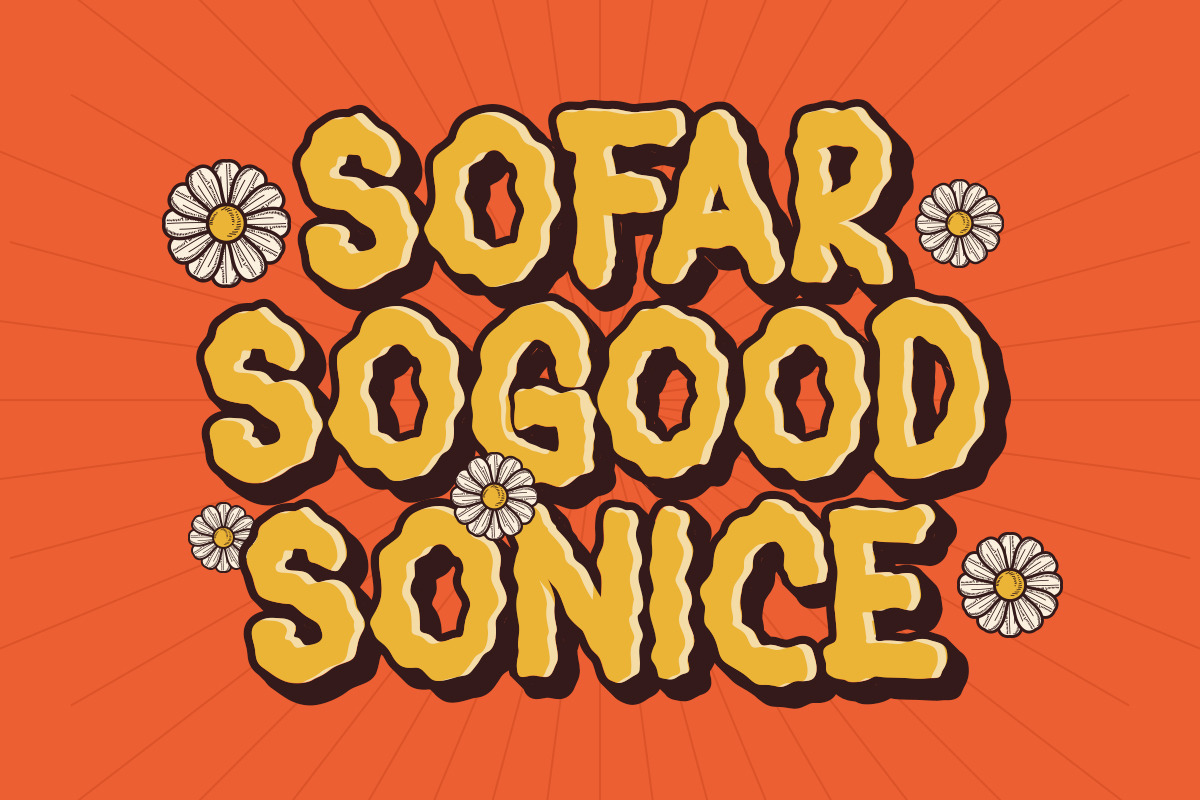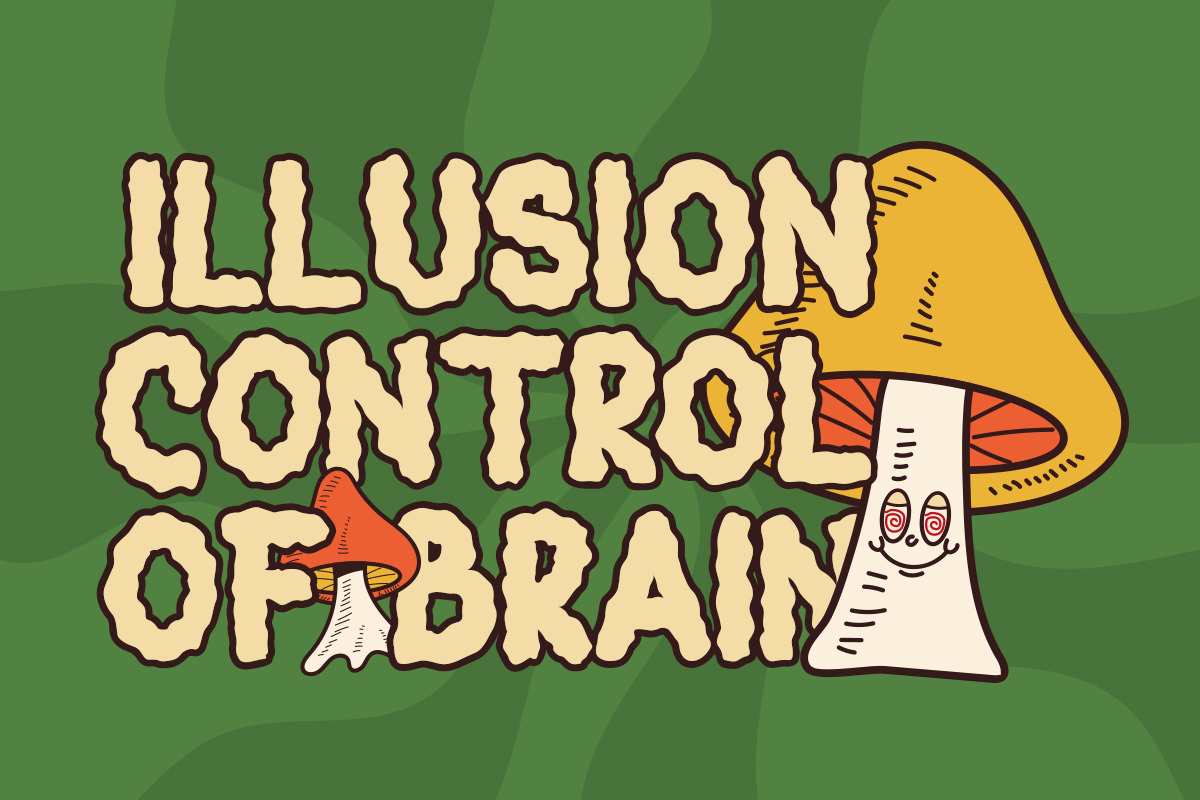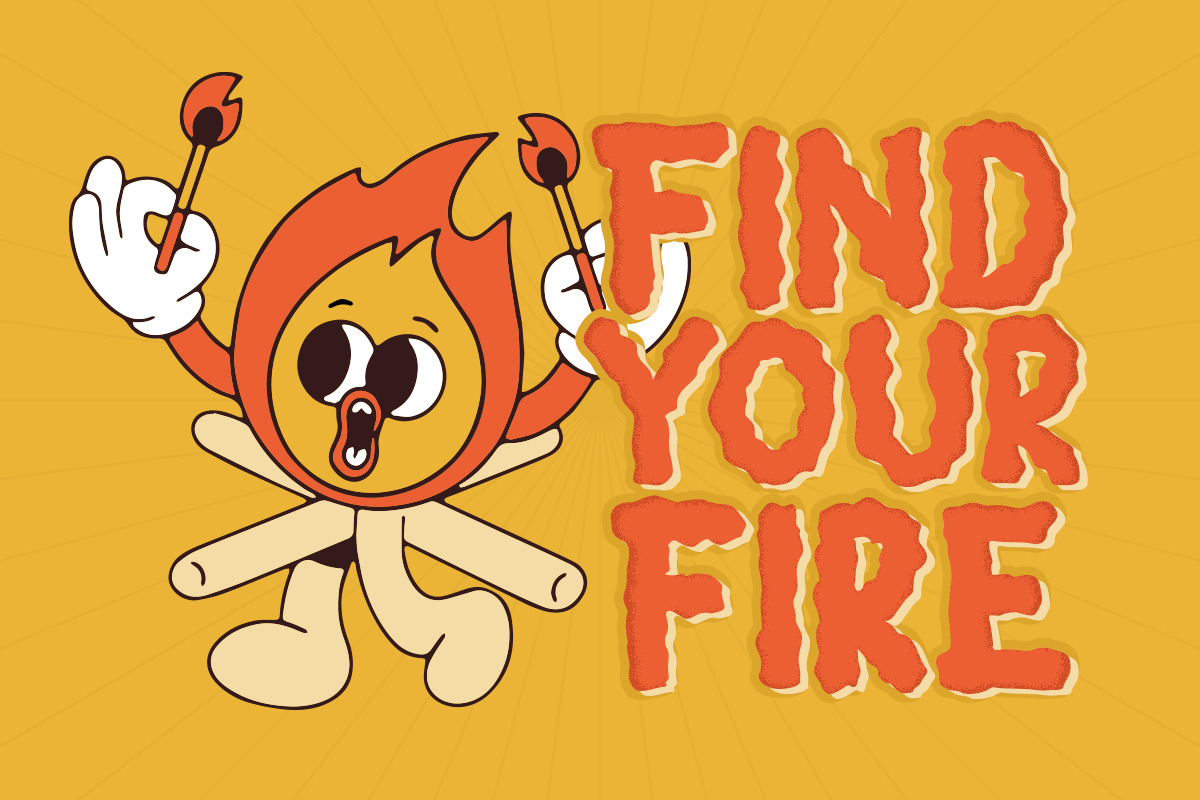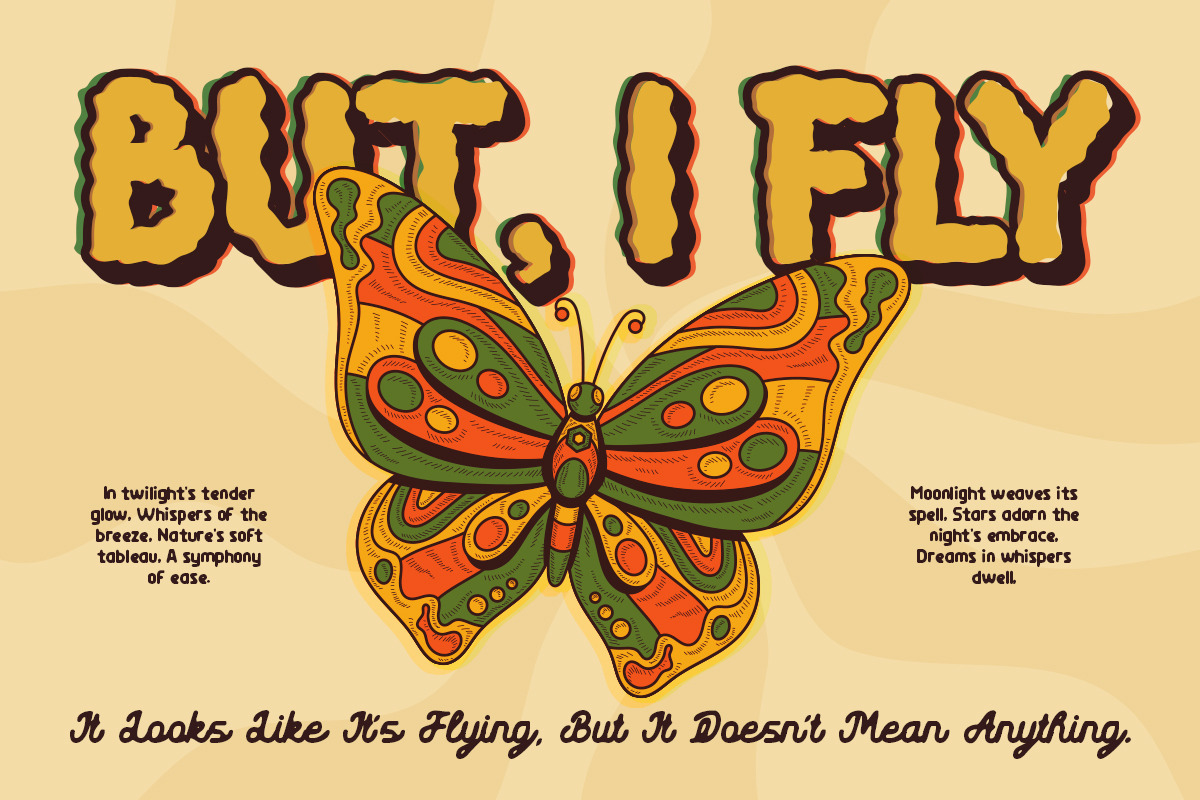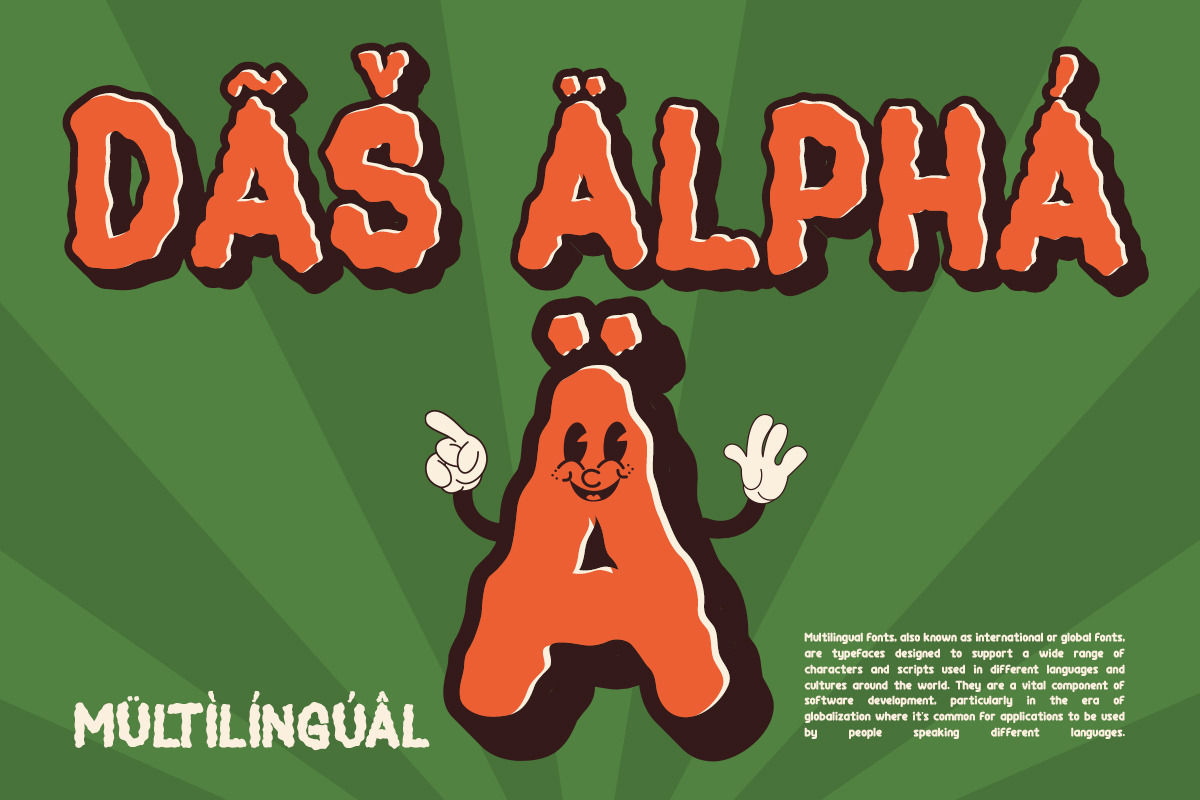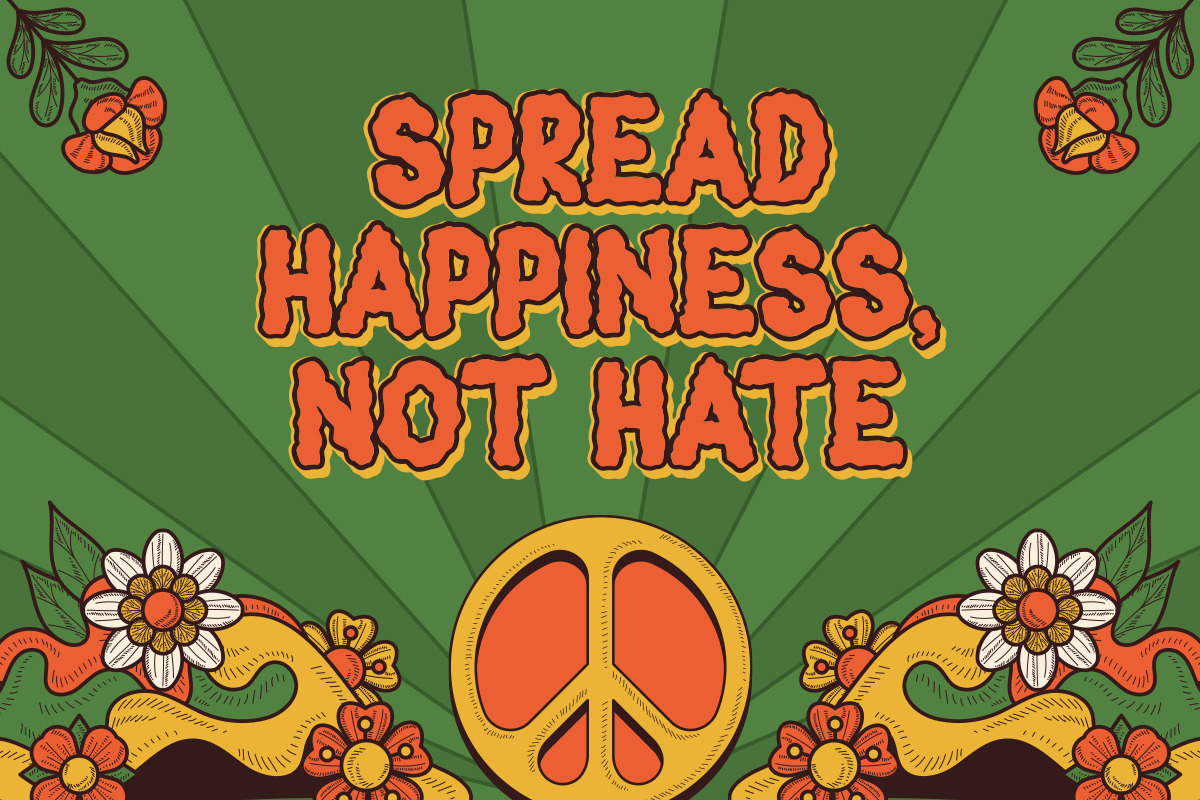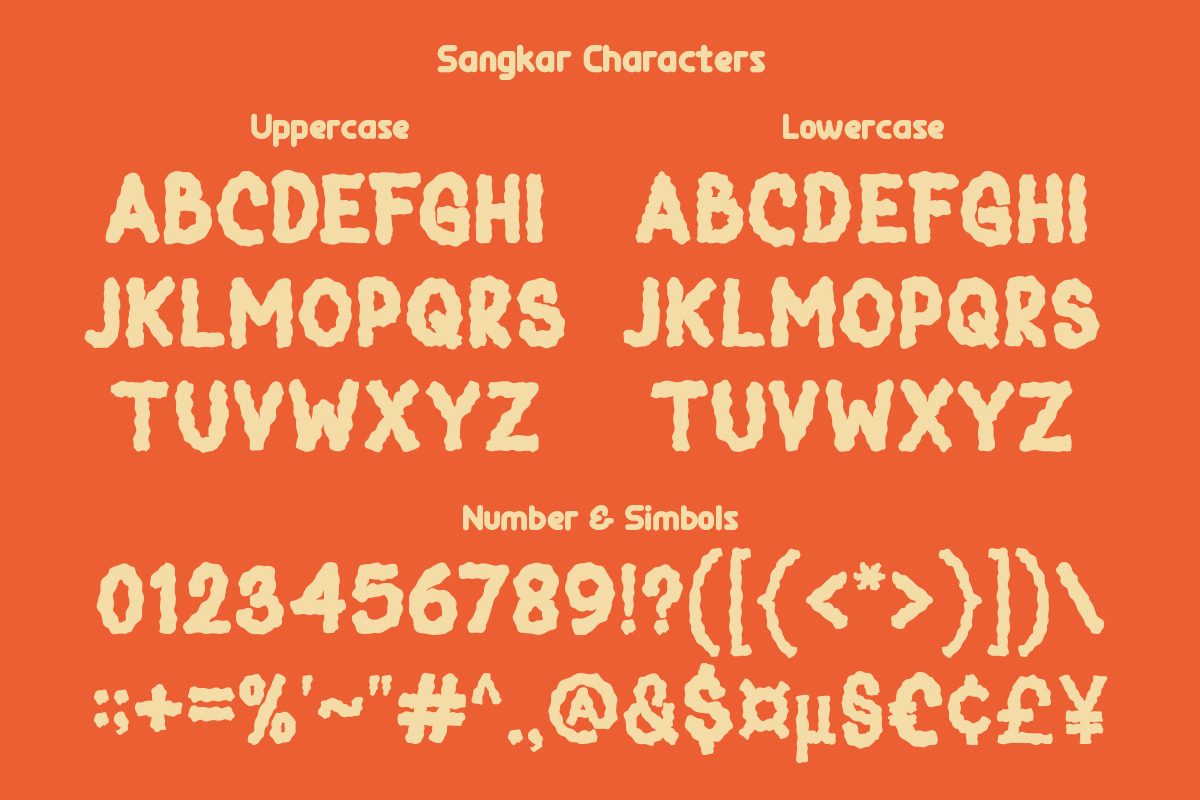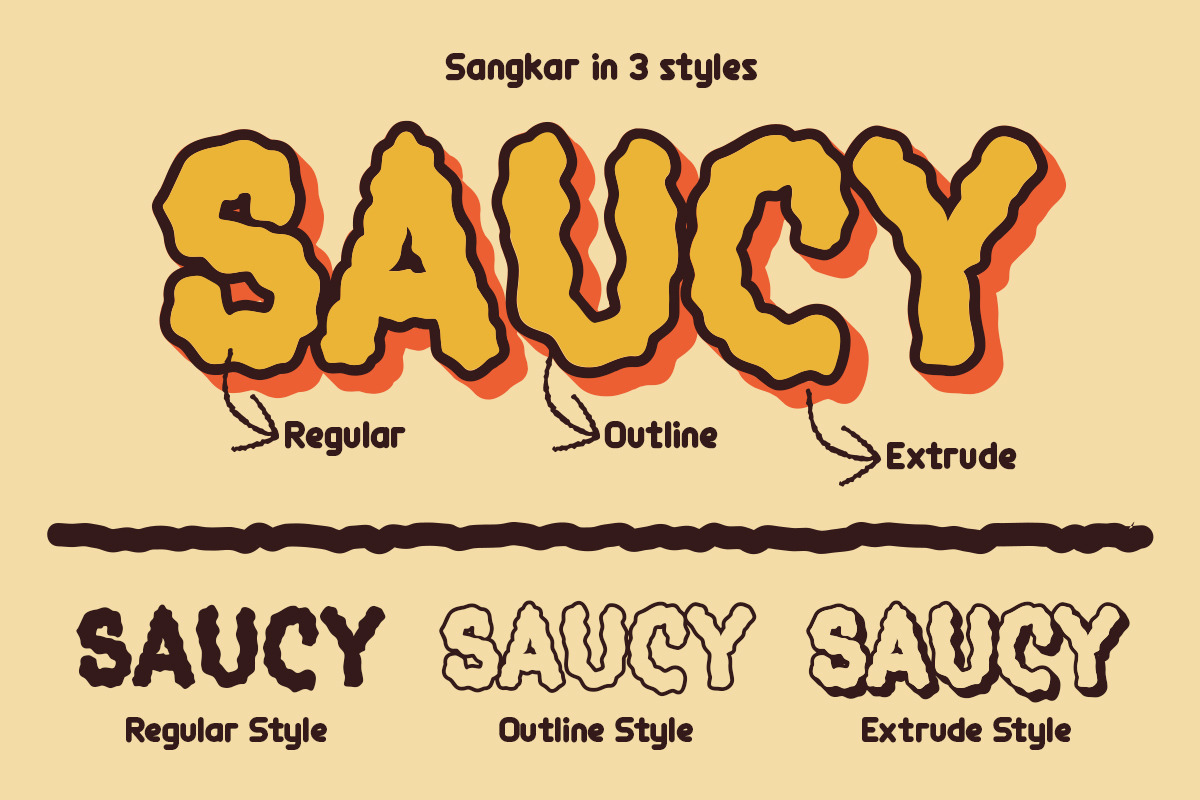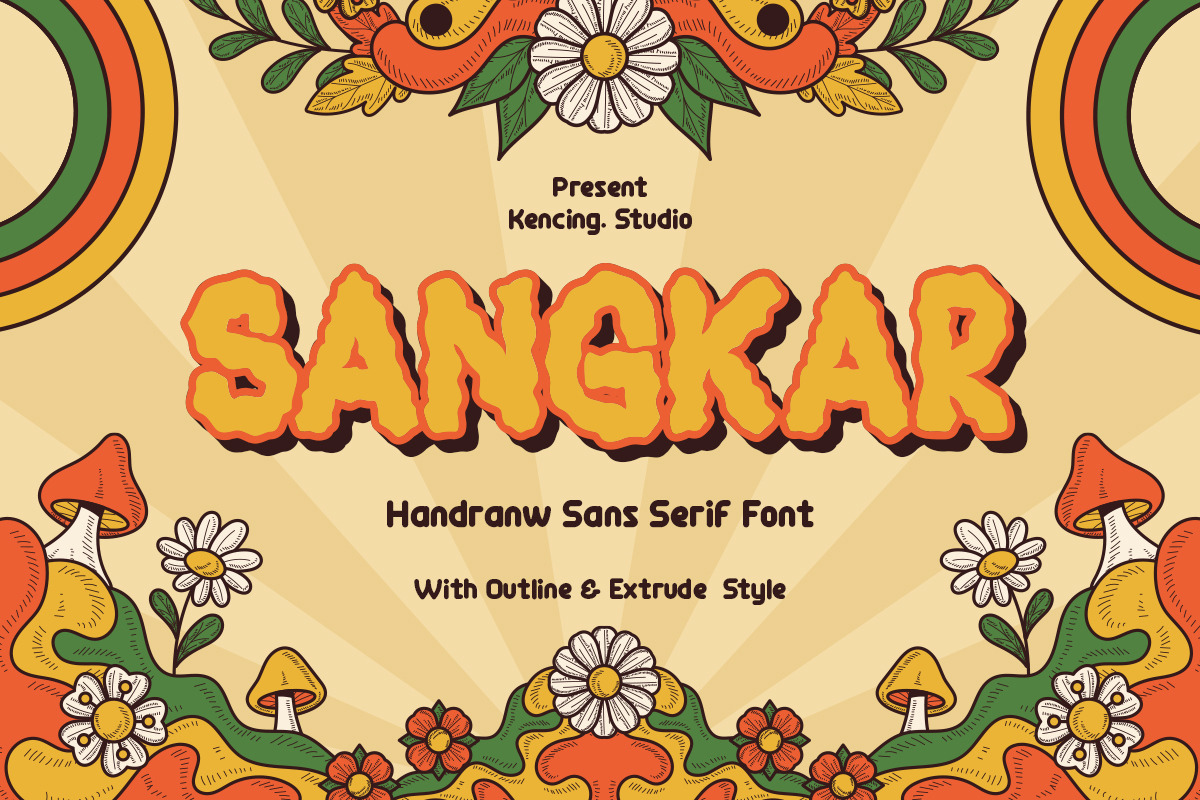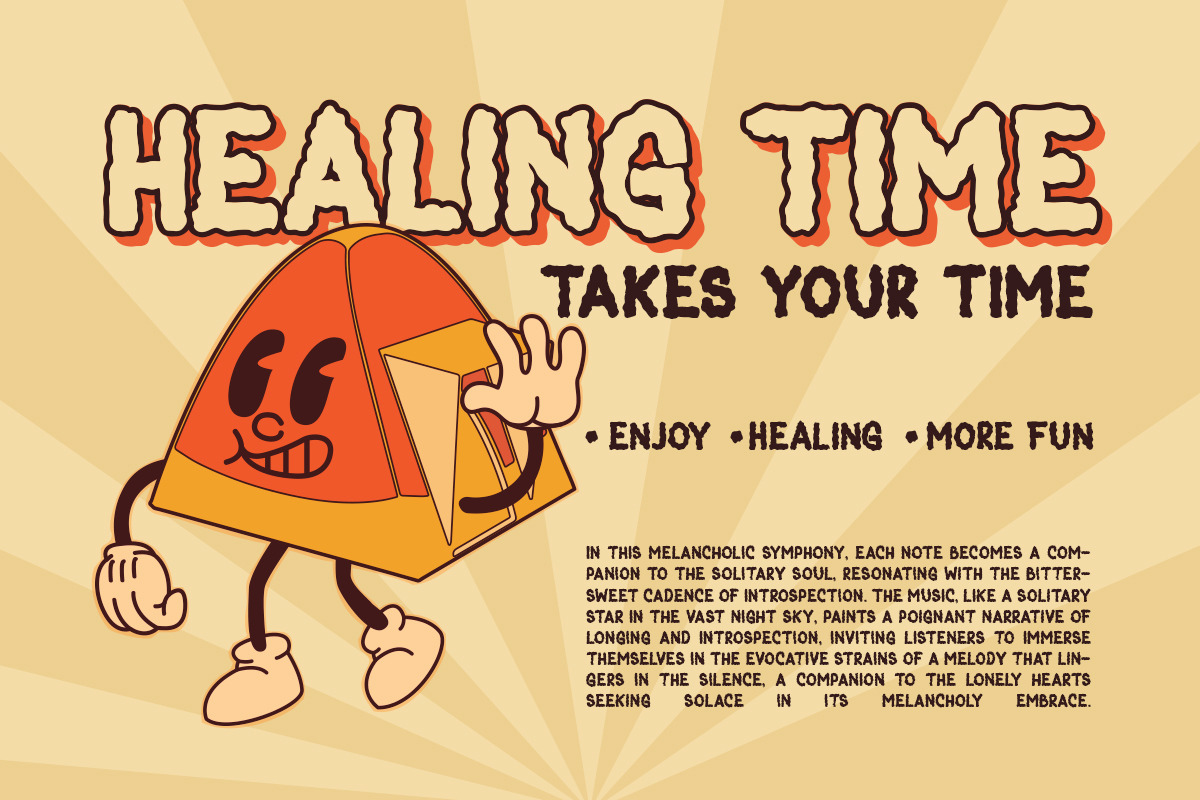
Sangkar - handdrawn Font
Sangkar, a quirky font and stylish font that will make your design look priceless. With Sangkar, you can you’re your project even more fun. A playful font with it’s bold and unique shaped font, will make your design catches their eyes. This typeface is a perfect for an invitation, posters, logo, and many more! Get Sangkar to make your design looks lit! Sangkar font will also include some features :
- Letters, numbers, symbols, and punctuation